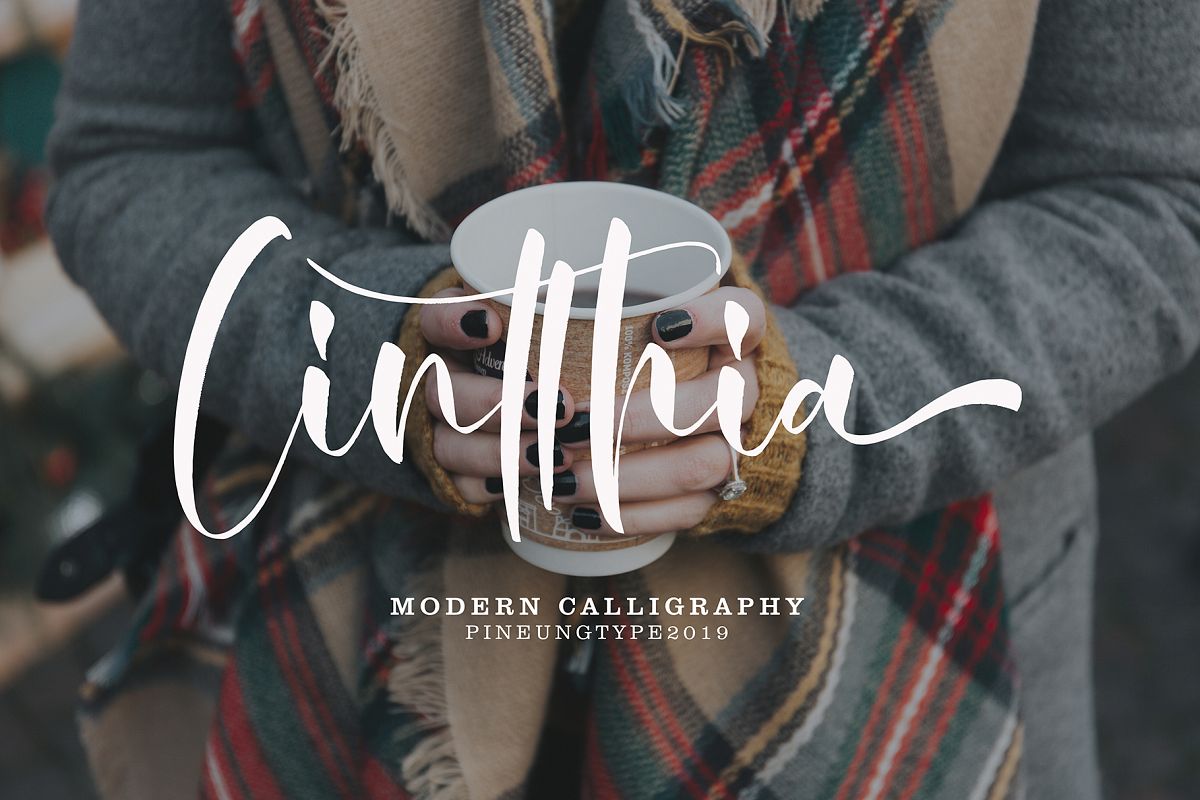
Cintthia
Cintthia casual font this font will perfect for many different project ex: quotes, logo, blog header, poster, banding, fashion, apparel, letter, invitation, stationery, etc...